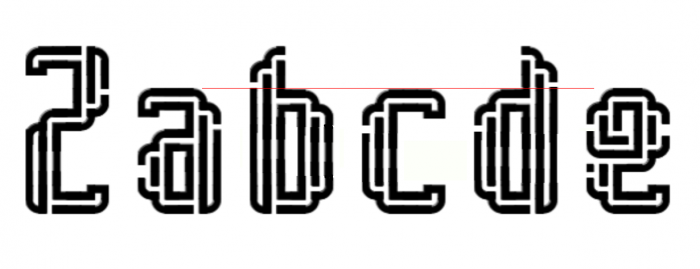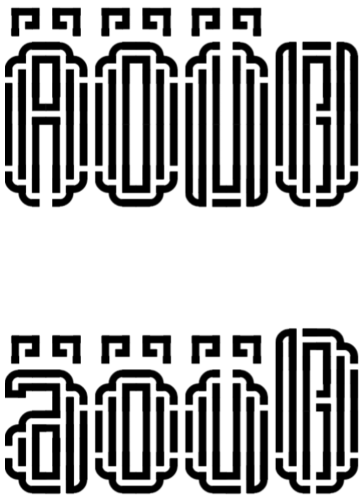
A mix of composited curves and lines. Many thanks to elmoyenique for the lowercase design.
Nice shapes here. I think it might work fine if you increase the size of the lower case to the height of the a or e.
and 's'?
thank you, elmoyenique. I have implemented your design not only because i agree that it looks ok, but also fixes the problems I was having with the 's' and the 'z'.
Fine. It could also be applied to other letters like f and t... Do you plan to add accents and other diacritics?
i might, i just don't know what they would look like.
managed to add german support.